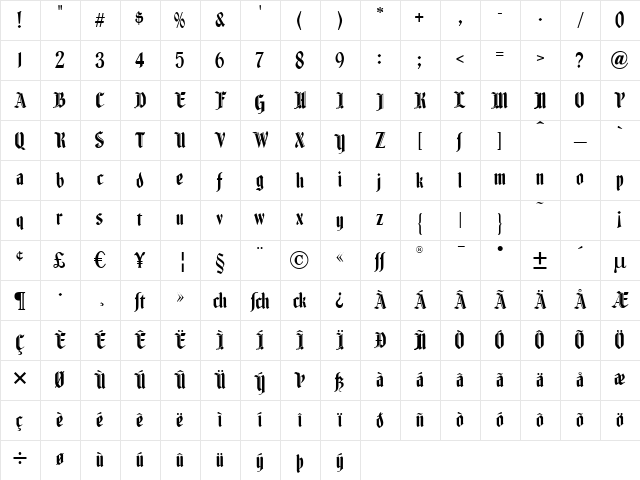
Complete Fenwick Woodtype Regular glyph index. Displaying only characters natively supported by Fenwick Woodtype Regular font.
Fenwick Woodtype echoes the hand-painted signage and woodblock typography of the American frontier, with a warm, rugged personality.
Font Pairing: Combine Fenwick Woodtype with a simple slab or neutral sans - period-accurate companions reinforce the vintage feel without competing for attention.
Pro Tip: Use Fenwick Woodtype for short, impactful bursts of text - it shines in poster headlines and product names rather than extended copy.